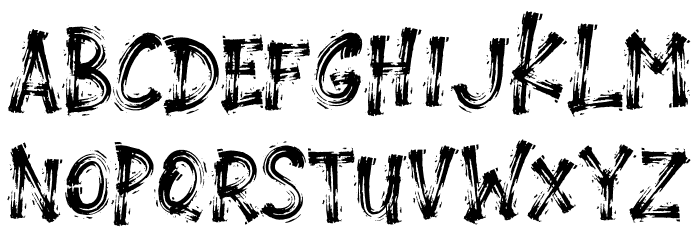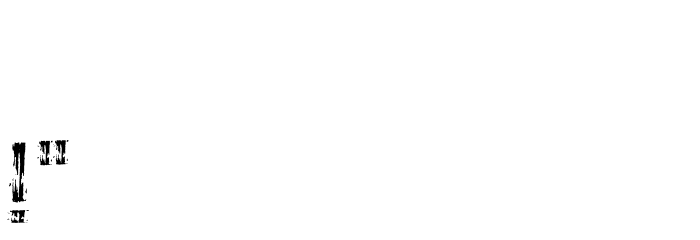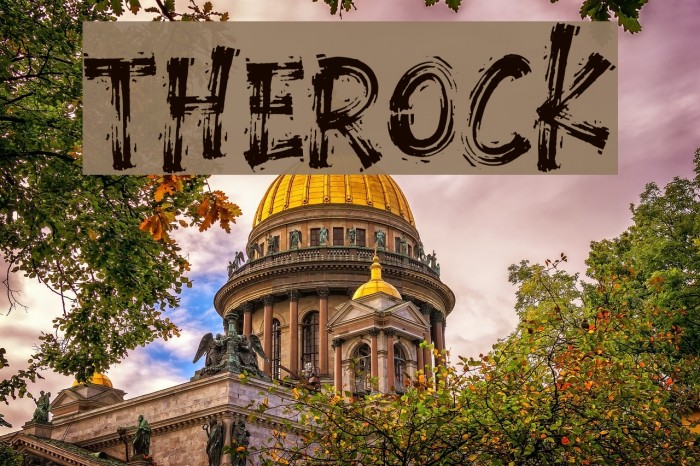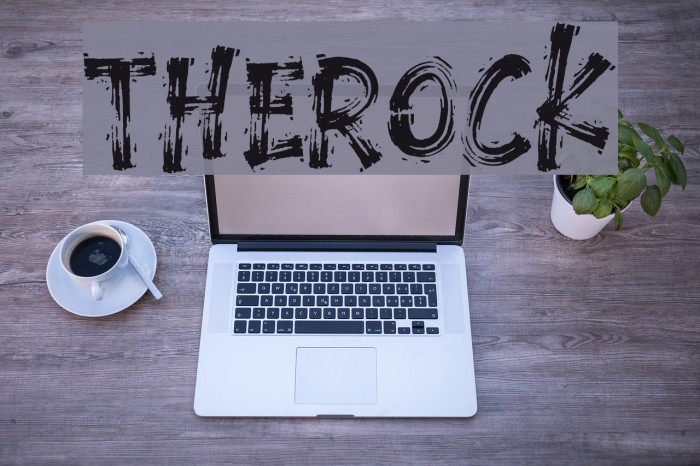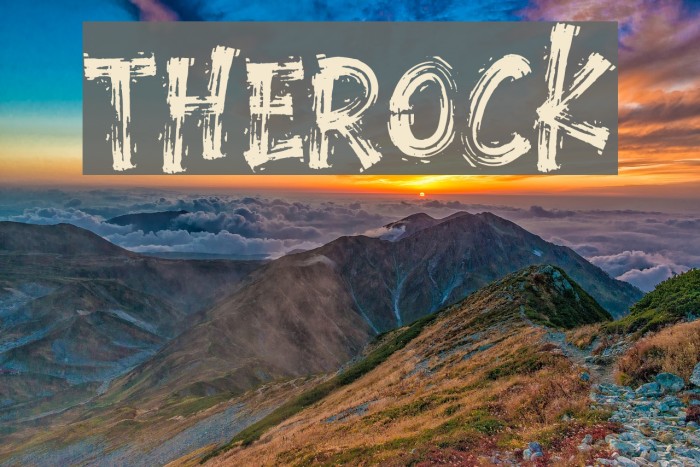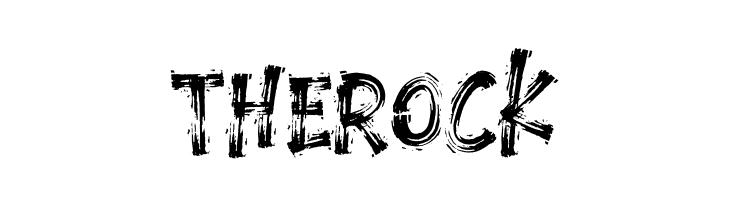
THEROCK Font
This font features a bold, brush-stroke style that exudes energy and dynamism. Each character is crafted with a rough, textured appearance, reminiscent of hand-painted lettering. The strokes vary in thickness, adding a sense of movement and spontaneity. The uppercase letters are particularly striking, with their bold presence and artistic flair. The font's unique style makes it stand out, offering a raw and expressive aesthetic. It is perfect for projects that require a touch of creativity and boldness, capturing attention with its distinctive look.
A bold, brush-stroke font with a textured, artistic style.
- Proposed Projects: Ideal for posters, album covers, artistic branding, and creative advertising.